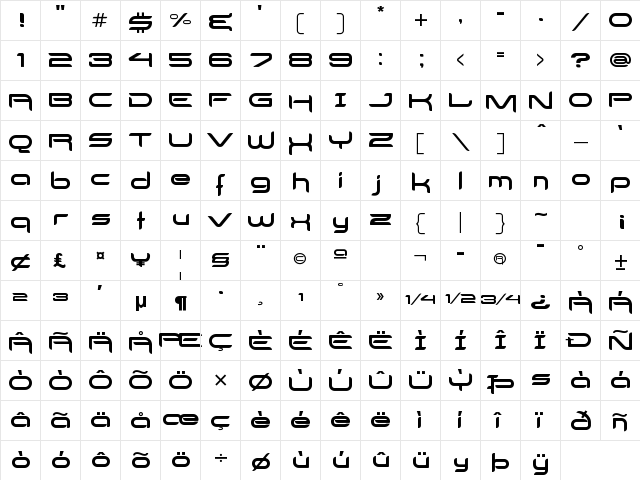
Delogs Goes Hi-Tech Regular
Design Context for Delogs Goes Hi-Tech Typeface
Delogs Goes Hi-Tech has a distinctly futuristic character, with geometric precision and clean angles that feel at home in technology, gaming, and sci-fi contexts.
Pro Tip: Try Delogs Goes Hi-Tech with generous letter-spacing in UI labels and navigation — the geometric forms benefit from room to breathe.